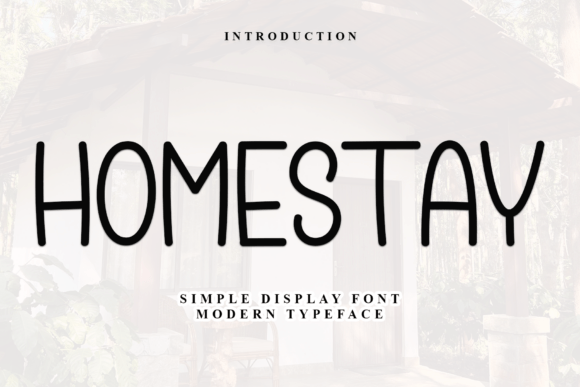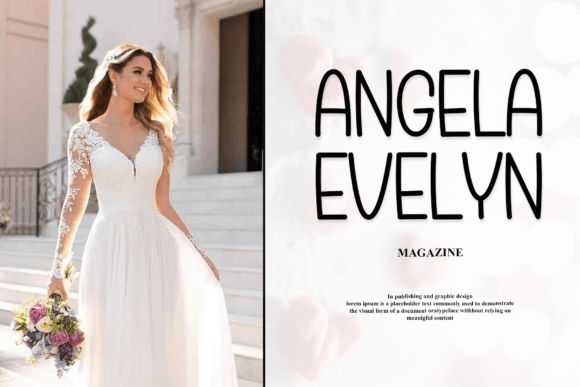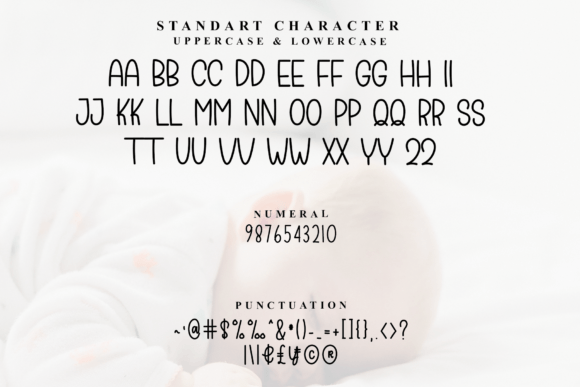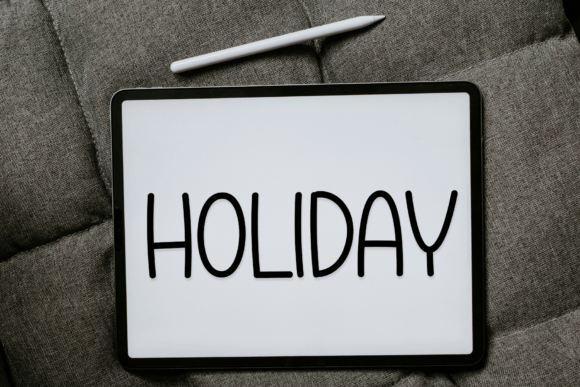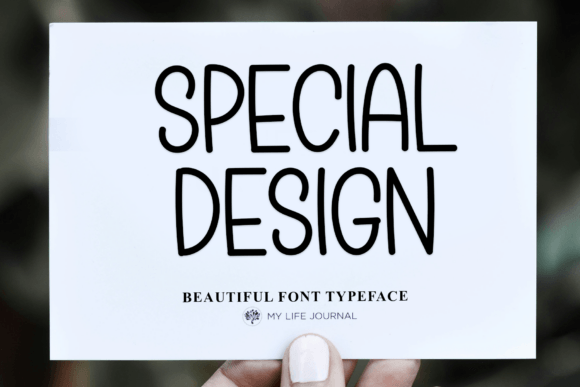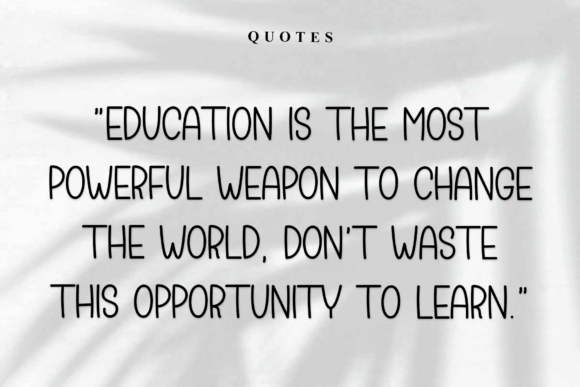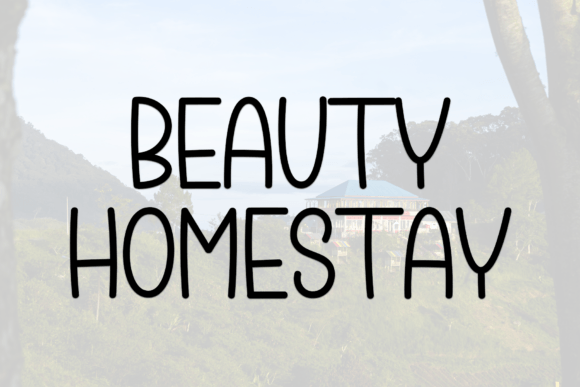
Unleashing the Magic of Handwritten Typography
Have you ever found yourself scribbling notes in a worn-out notebook, the pen gliding effortlessly across the page as you try to capture the perfect phrase? That’s when the magic happens – the intersection of creativity and imperfection. For designers, there’s no shortage of tools to tap into this magic, but sometimes, the simplest and most elegant solutions are the most effective.
Enter Homestay Font, a beautiful and timeless handwritten font that’s perfect for adding a touch of personality to your designs. Whether you’re crafting eye-catching logos, branding, or quotes, Homestay Font is an excellent choice. Its unique and beautiful touch brings designs to life, making it a valuable addition to any designer’s toolkit.
With its PUA encoding, accessing all the amazing glyphs and ligatures is a breeze, giving you the freedom to create with ease and precision.
- Font Family: Homestay Font is a unique, high-quality font family that includes 6 styles: Regular, Italic, Bold, Bold Italic, Condensed, and Condensed Italic.
- Unique Characteristics: The Homestay Font features a modern, elegant design with a unique blend of traditional and modern elements. It is ideal for use in hospitality, travel, and lifestyle branding.
- Character Set: The font includes a comprehensive character set, including Latin, Greek, and Cyrillic alphabets, as well as a range of punctuation and symbol glyphs.
At first glance, Homestay Font seems like a promising addition to any design project. Here’s what caught my attention:
- ✨ The font’s warm and inviting aesthetic makes it perfect for travel and hospitality-related projects.
- ✨ The font’s flexibility in terms of font sizes and styles allows for a high level of customization.
- ✨ The font’s extensive character set makes it suitable for use in a variety of languages.
However, as I delved deeper into the font, I noticed some limitations:
- ⚠️ The font’s legibility at very small font sizes can be compromised, which may be a concern for projects requiring tight text constraints.
- ⚠️ Some users may find the font’s rounded edges and curves too whimsical for certain design styles.
- ⚠️ The font’s weight and contrast may not be suitable for projects requiring a more modern or sleek aesthetic.
Overall, I think Homestay Font is a solid choice for designers looking for a warm and inviting font. While it may not be suitable for every project, it’s definitely worth considering for travel and hospitality-related designs.
Compared to Homestay Font, Great Vibes has a more elegant and refined feel, making it suitable for more formal designs. However, both fonts share a similar handwritten aesthetic.